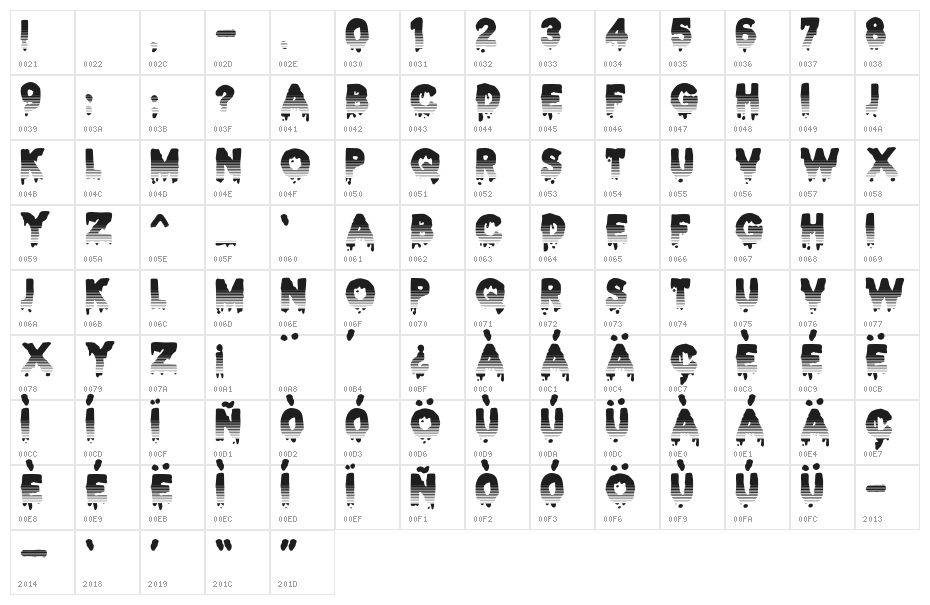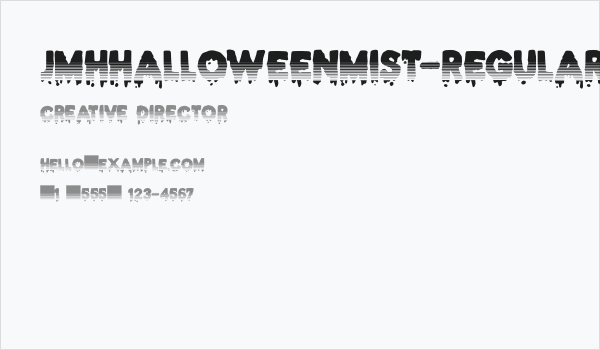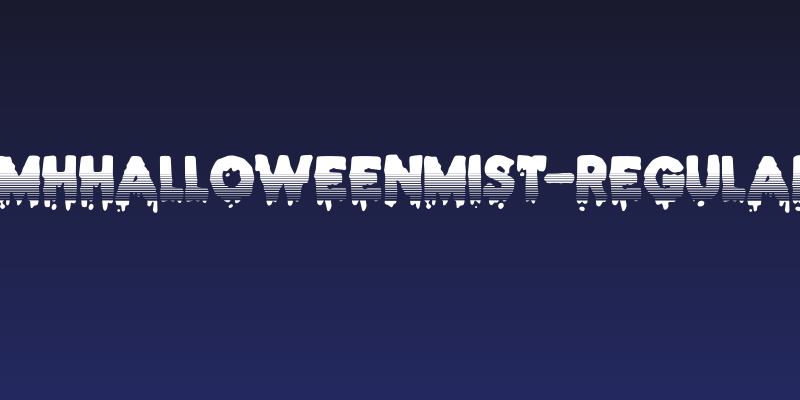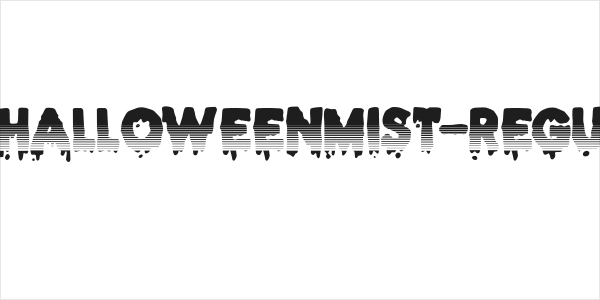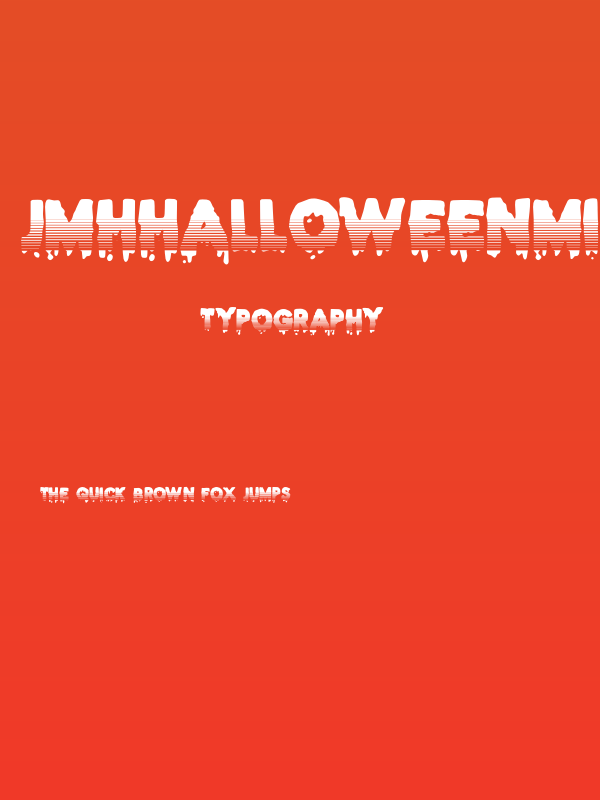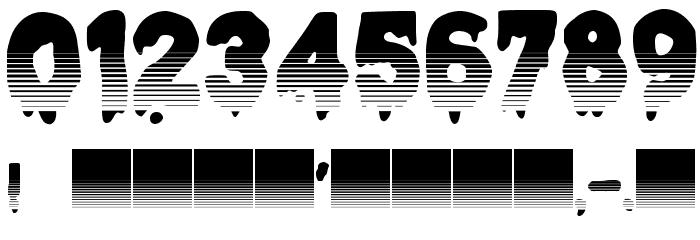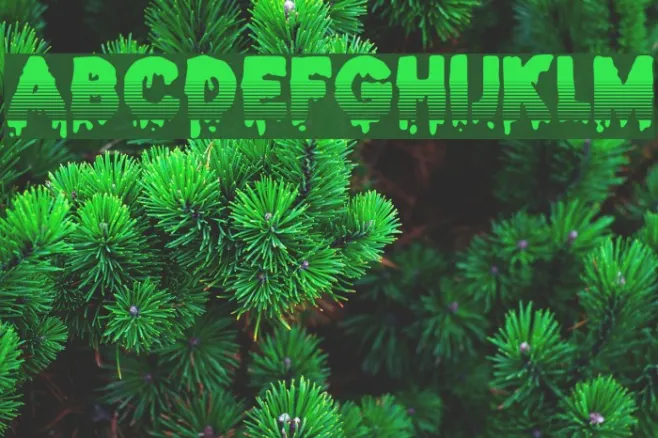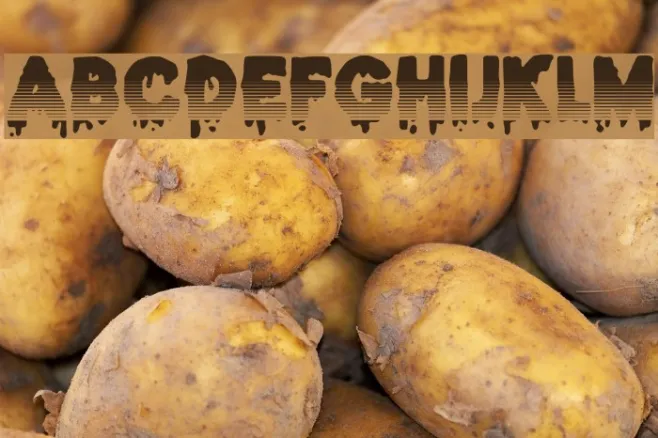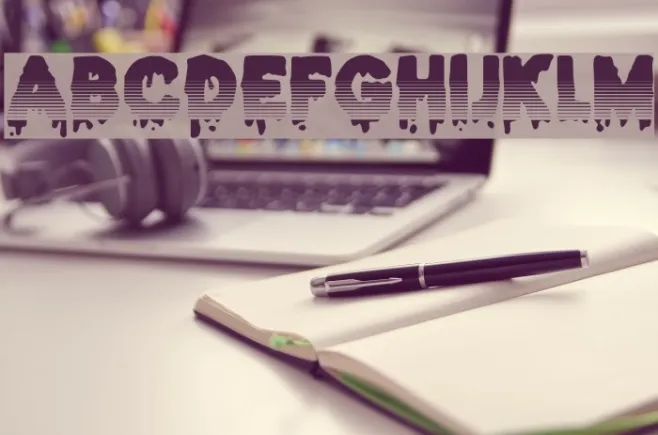
JMHHALLOWEENMIST-Regular Font
JMHHALLOWEENMIST-Regular Description
This font features a spooky and playful design, perfect for Halloween-themed projects. The letters are bold and display a dripping effect, reminiscent of melting or oozing substances, which adds to its eerie charm. The uppercase and lowercase letters maintain a consistent style, with horizontal lines running through each character, enhancing the visual interest. The numbers and special characters follow the same thematic design, ensuring a cohesive look across all text elements. The overall appearance is striking and eye-catching, making it ideal for decorative purposes.